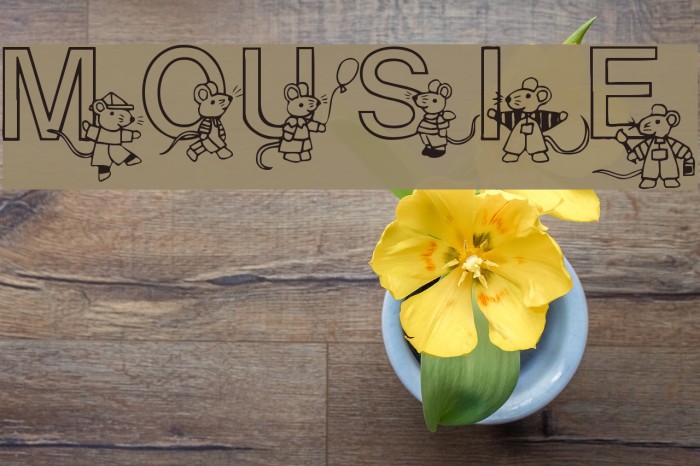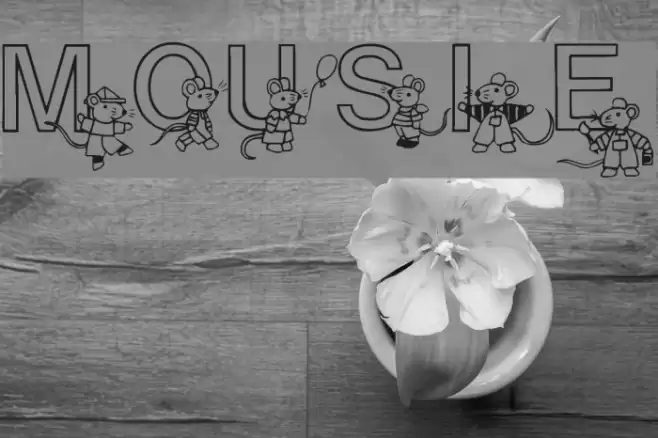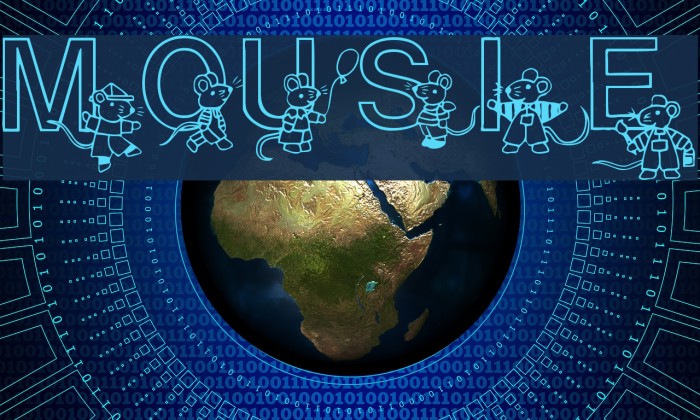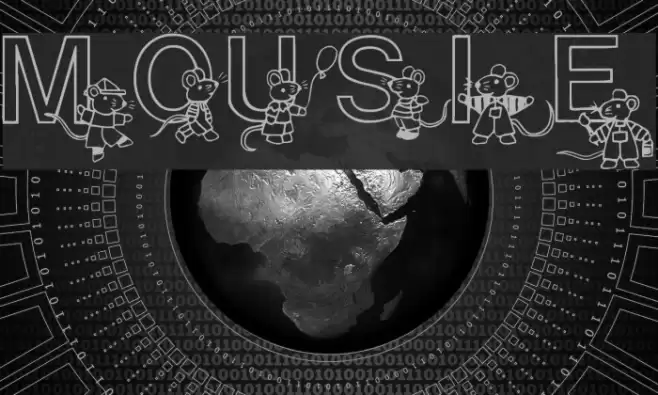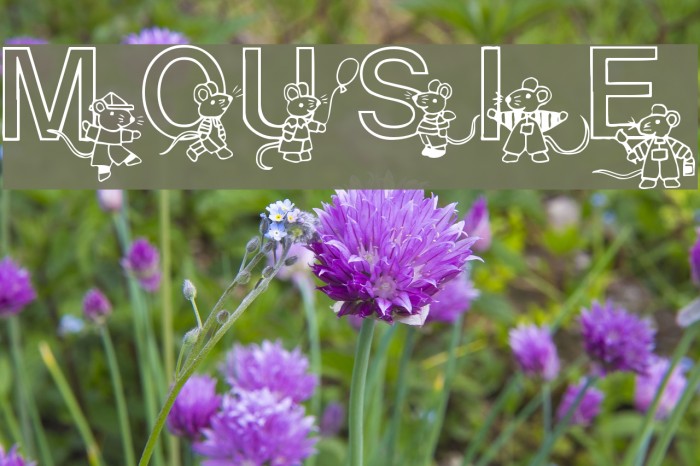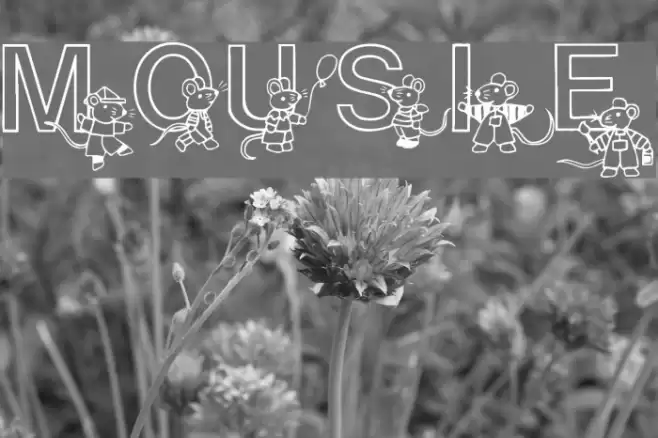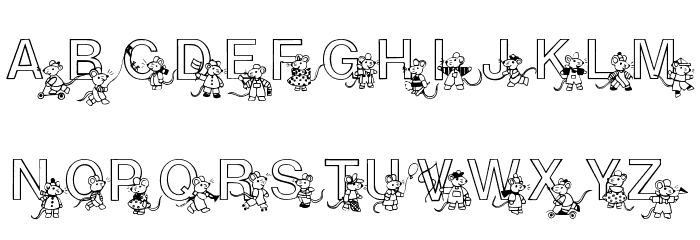
Mousie Font
Mousie Description
This playful and whimsical font features a series of cartoon mice interacting with each letter, creating a lively and engaging design. Each character is outlined in a bold, sans-serif style, with the mice adding a unique decorative element that brings a sense of fun and creativity. The font is perfect for projects aimed at children or those looking to add a touch of humor and charm. The overall design is clean yet imaginative, making it suitable for a variety of playful applications.
| Overall Style | Playful, Whimsical |
| Use Case | Headlines, Logos, Children's materials |
| Proposed Projects | Ideal for children's books, playful branding, educational materials, and creative invitations. |